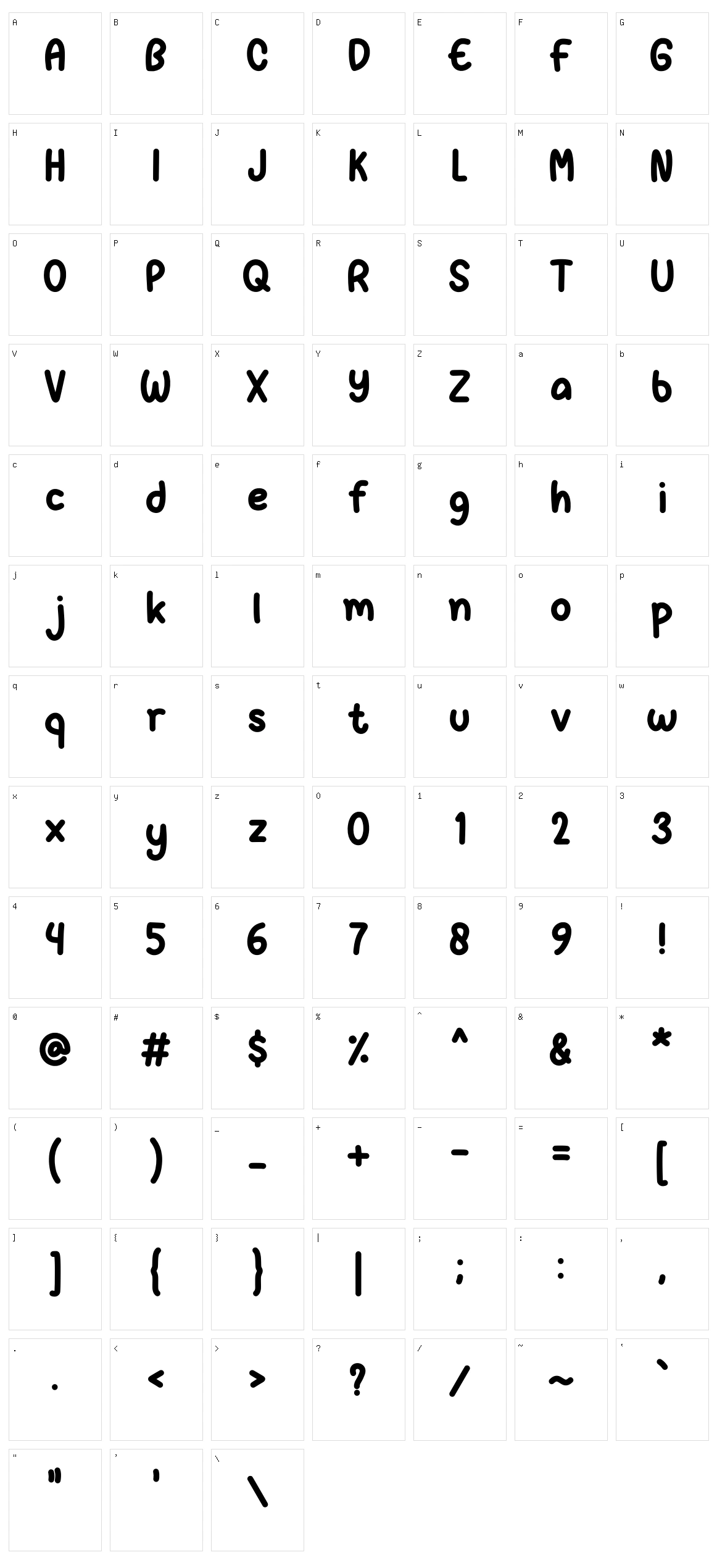
The free font Vanilla Caramel is carefully designed by Appleberry Studio, showcasing a thoughtful balance of creativity and usability and falls under the Cartoon font style. When you download the ZIP file, it contains only 47.71 KB of font files, making it lightweight and quick to download. Please review the license details below to understand permitted usage and distribution rights. If license information is not available, we recommend using this font for personal projects only or contacting the author directly for commercial usage permissions.